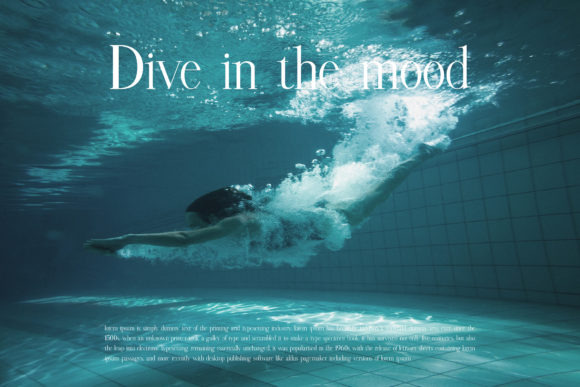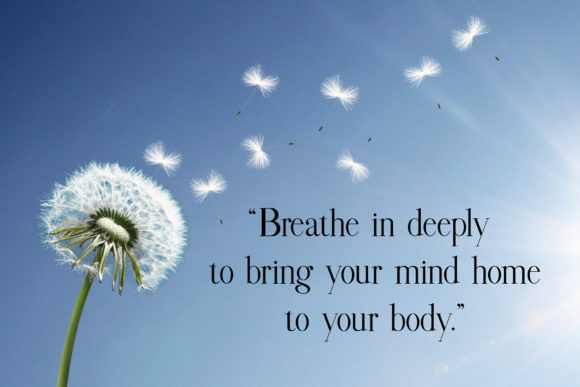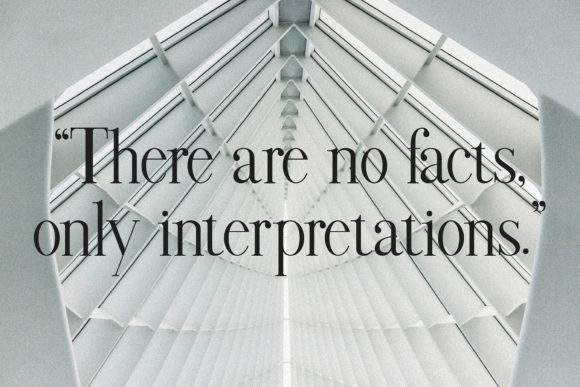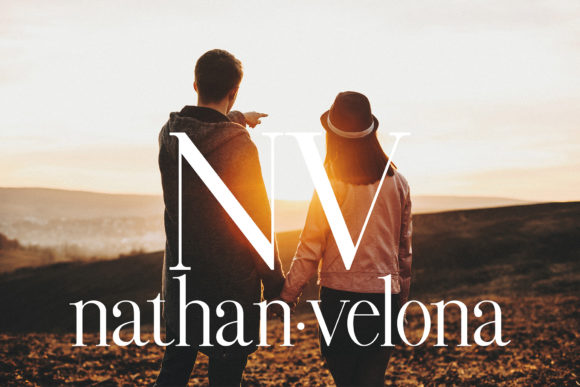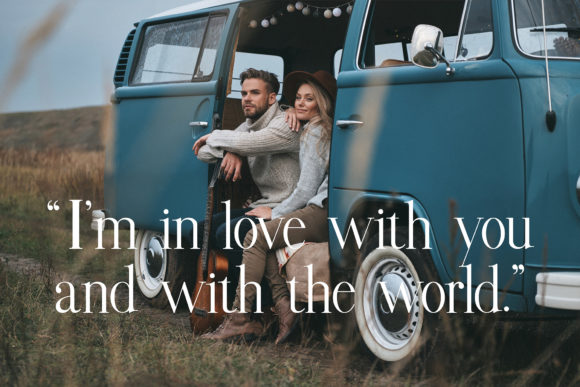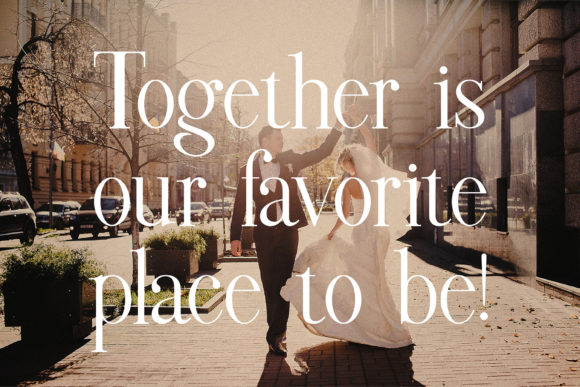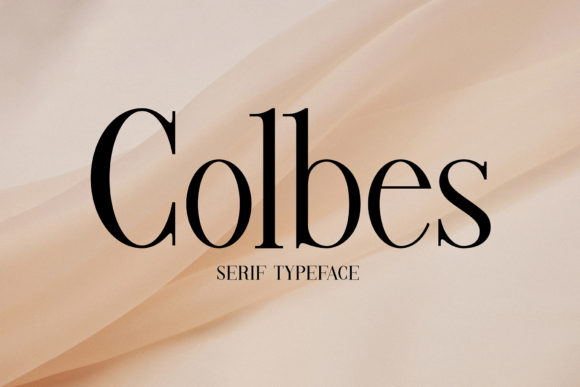
Introducing Colbes Font: The Ultimate Serif Font for Creative Projects
Are you tired of using the same old fonts for your design projects? Look no further than Colbes Font, a cool, bold, and elegant serif font that’s perfect for making your creative ideas stand out. In this article, we’ll dive into the features and benefits of Colbes Font, and explore how it can elevate your designs to the next level.
What is Colbes Font?
Colbes Font is a serif font that’s designed to make a statement. Its bold and elegant style makes it perfect for a wide range of projects, from logos and branding to headings and titles. The font’s classic serif design ensures that it remains highly legible, even at smaller sizes, making it a versatile choice for any design project.
Key Features of Colbes Font
- Cool and Elegant Design: Colbes Font boasts a unique and sophisticated design that’s sure to turn heads. Its elegant lines and classic serif style make it perfect for designs that require a touch of sophistication.
- Bold and Eye-Catching: With its bold lines and striking appearance, Colbes Font is guaranteed to make your designs stand out from the crowd.
- Highly Legible: Despite its bold style, Colbes Font remains highly legible, even at smaller sizes. This makes it perfect for use in a wide range of projects, from body text to headings and titles.
- Versatile: Colbes Font can be used in an incredibly large set of projects, making it a valuable addition to any designer’s font library.
Benefits of Using Colbes Font
So why choose Colbes Font for your design projects? Here are just a few benefits of using this amazing serif font:
- Adds Sophistication to Your Designs: With its elegant and classic design, Colbes Font adds a touch of sophistication to any project.
- Perfect for Logos and Branding: The bold and eye-catching style of Colbes Font makes it perfect for use in logos and branding projects.
- Increases Readability: The highly legible design of Colbes Font ensures that your text remains easy to read, even at smaller sizes.
- Versatile and Flexible: Colbes Font can be used in a wide range of projects, from digital designs to print materials.
How to Use Colbes Font in Your Designs
Using Colbes Font in your designs is easy. Here are a few tips to get you started:
- Pair it with Other Fonts: Colbes Font pairs perfectly with a wide range of other fonts, making it easy to create stunning font combinations.
- Use it for Headings and Titles: The bold and eye-catching style of Colbes Font makes it perfect for use in headings and titles.
- Add it to Your Brand Identity: With its elegant and sophisticated design, Colbes Font is perfect for use in logos and branding projects.
- What type of font is Colbes Font?: Colbes Font is a serif font.
- Is Colbes Font suitable for use in logos and branding?: Yes, Colbes Font is perfect for use in logos and branding projects.
- Can I use Colbes Font for body text?: While Colbes Font is highly legible, it’s best suited for use in headings and titles. For body text, you may want to choose a font with a slightly more traditional design.